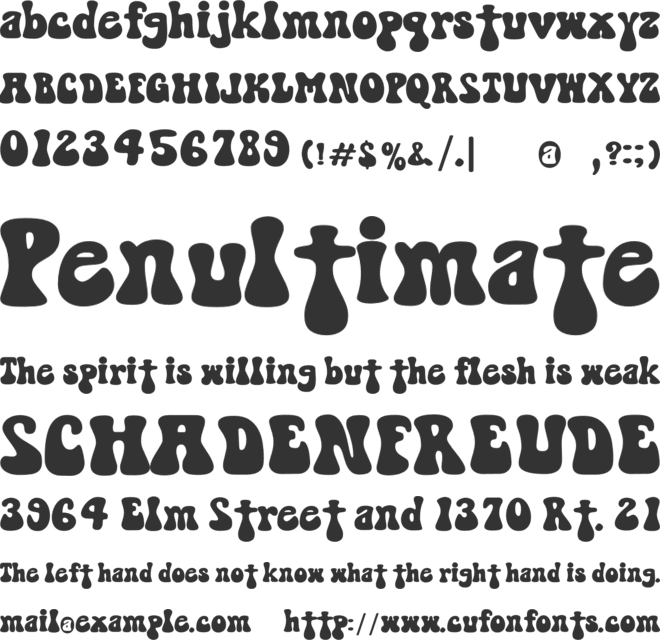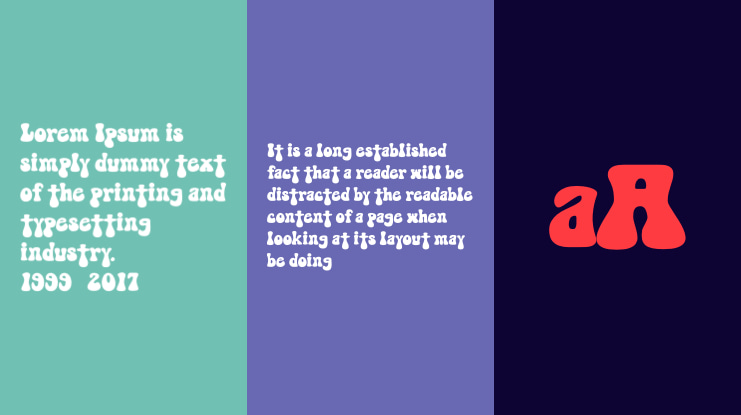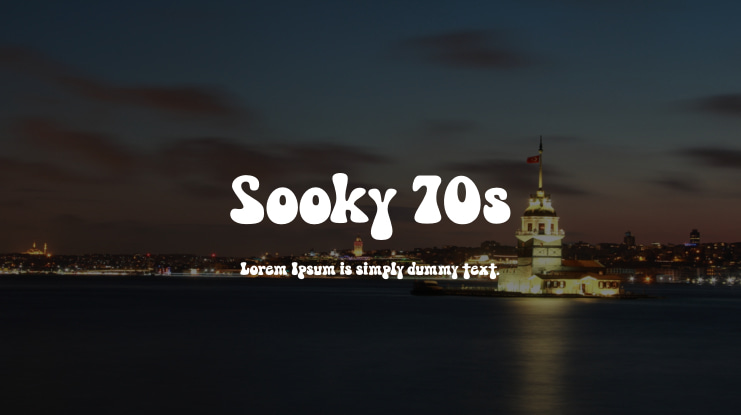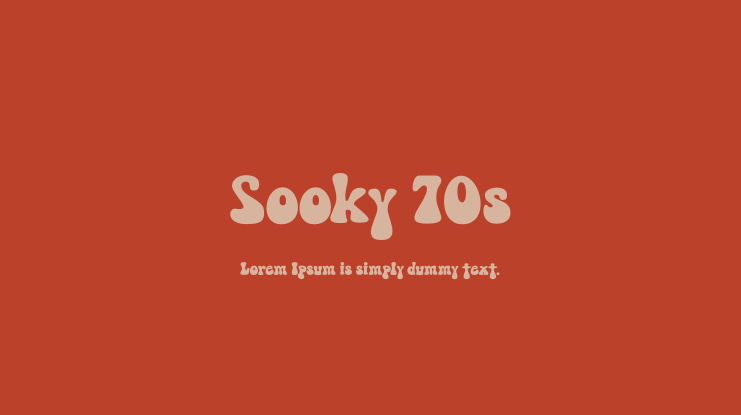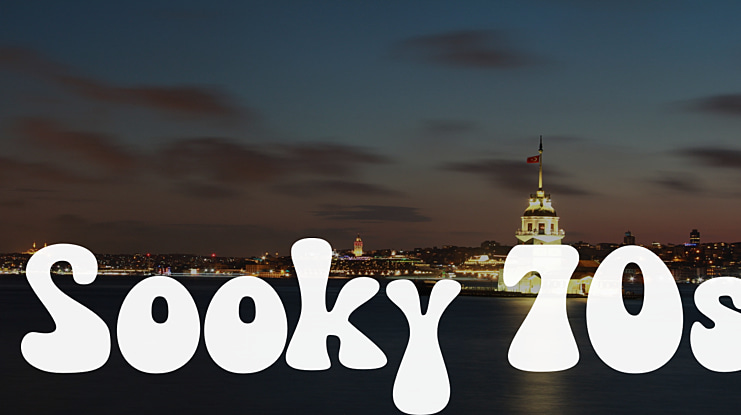
Sooky 70s Font
Introducing The Sooky 70s Font - Fun and Playful Bubbly Font with Groovy Retro Feel. This font was created with the spirit of the 70s and 90s sweetness. This bubbly font will be perfect for many of your projects; merchandise, posters, magazine, tshirt, and more.